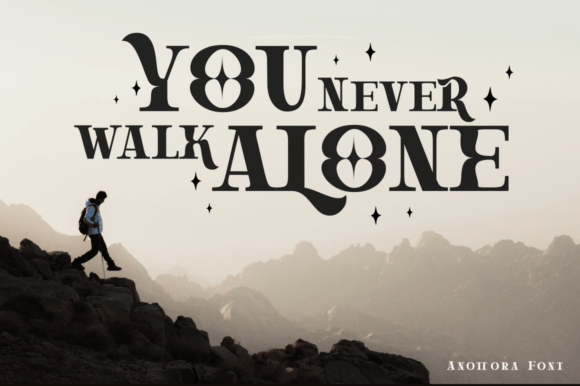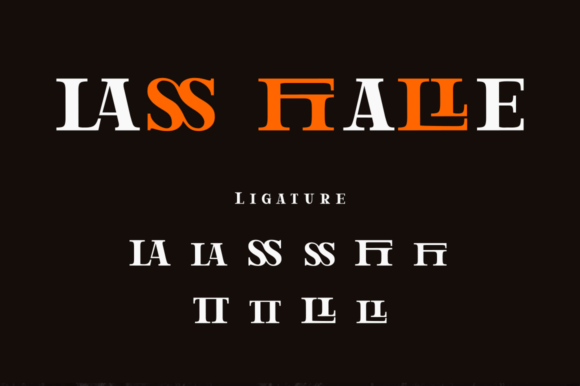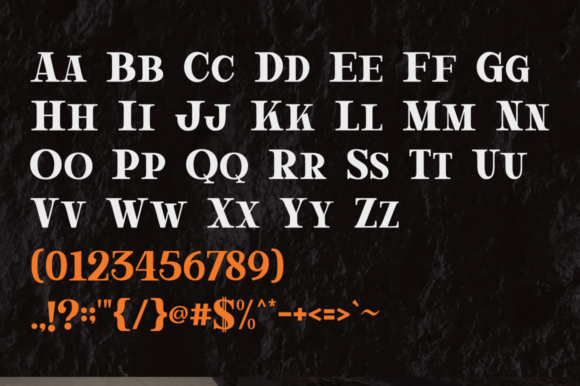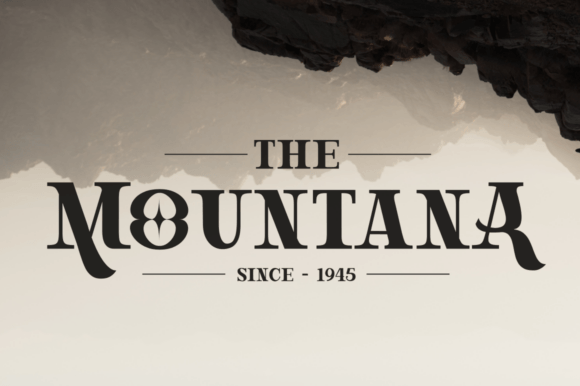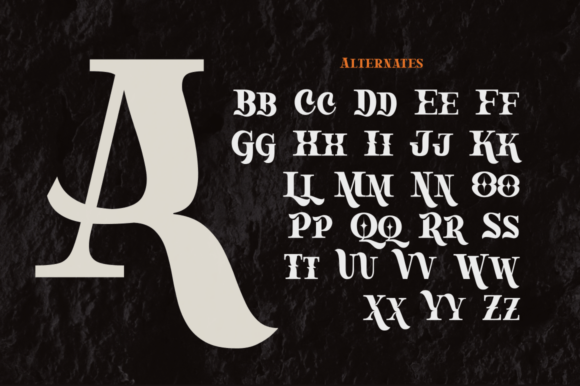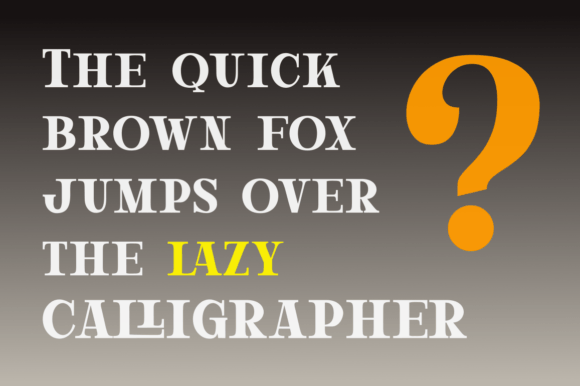
The Ultimate Guide to Anottora Font: Elevate Your Designs with Elegance
Have you ever been in the middle of a design project, and suddenly, you’re stuck on finding the perfect font? I recall a particularly frustrating experience while working on a branding project for a luxury wedding planner. My client wanted a sophisticated, modern look that would make their logo and marketing materials stand out. After hours of scouring font libraries, I stumbled upon Anottora Font, and it was love at first sight! 💕
Anottora Font is an elegant display serif font with a modern twist, perfect for multipurpose projects. Its sophisticated look makes it an excellent choice for logos, crafts, posters, books, branding, quotes, print templates, packaging, invitations, product labels, advertising, wedding projects, and more.
An Honest Review of Anottora Font
What I Love About Anottora Font ✨
• 💯 Elegant and Modern Design: Anottora Font boasts a sleek, contemporary look that instantly elevates any design.
• ✅ Versatility: This font is incredibly versatile, making it suitable for a wide range of projects, from luxury branding to creative crafts.
• 🎨 OpenType Features: Anottora Font comes with advanced OpenType features, including glyphs and stylistic alternates, allowing for creative freedom and customization.
• 📚 Multilingual Support: The font supports multiple languages, making it an excellent choice for global brands or projects with diverse audiences.
While Anottora Font is an exceptional choice for many projects, there are a few minor considerations to keep in mind:
• 🤔 Legibility at Small Sizes: Like many elegant serif fonts, Anottora may not be the best choice for body text at very small sizes. It’s ideal for headlines, titles, and display text.
• ⚠️ Requires Attention to Kerning: To ensure optimal readability, pay attention to kerning, especially when using the font for longer texts or quotes.
The Backstory of Anottora Font
Anottora Font was designed with the intention of creating a versatile, elegant typeface that meets the demands of modern design. While the actual designer and their story might be shrouded in mystery, it’s clear that the creator aimed to produce a font that could seamlessly blend into various design projects, from luxury branding to creative hobbies.
Q: Is Anottora Font suitable for body text?
A: While Anottora Font is stunning for titles and headlines, it may not be the best choice for lengthy body text due to its elegant serif design. For optimal readability, consider pairing it with a clean sans-serif font for body text.
Q: Does Anottora Font support non-English languages?
A: Yes, Anottora Font offers multilingual support, making it suitable for projects targeting a global audience.